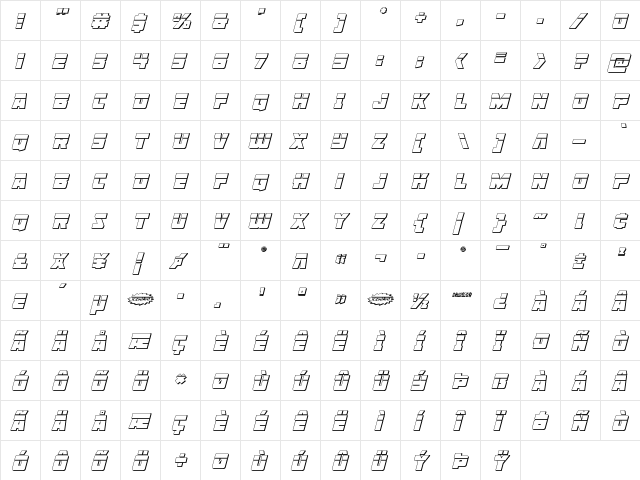
Liberty Legion 3D Laser Italic Italic
Design Context for Liberty Legion 3D Laser Italic Typeface
Liberty Legion 3D Laser Italic is a composed and adaptable typeface that performs quietly and consistently across a wide range of design contexts. Its italic angle brings a sense of urgency and motion to the letterforms.
Pro Tip: Try Liberty Legion 3D Laser Italic for annotation and caption copy alongside an upright companion — the contrast in angle creates a dynamic but ordered typographic system.